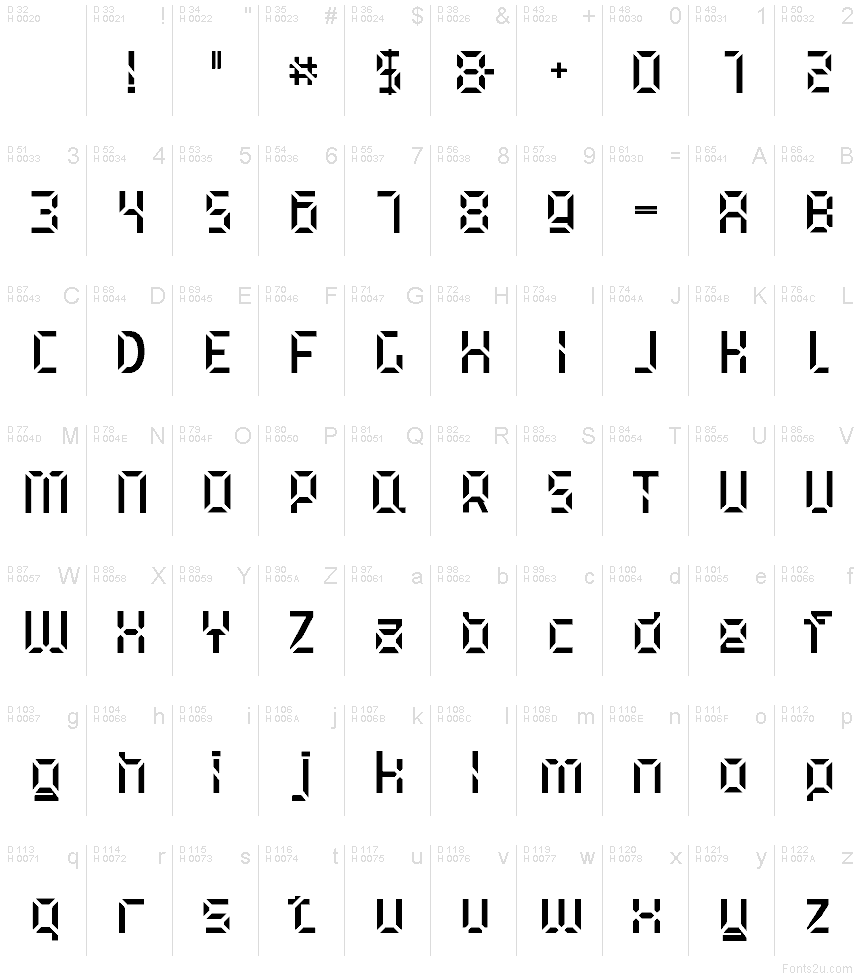
Speed PX Watch
Speed PX Watch font by Ffeeaarr is a free digital display typeface. Its segmented, angular letters echo LED watch numerals, but with sharper corners and more graphic drama, like a racing timer frozen mid-flash. The rhythm of repeated diagonal cuts keeps every word marching in a steady, mechanical beat, giving screens and layouts a crisp, synthetic energy.
Using Speed PX Watch, you can give countdown timers, sci‑fi interfaces, esports branding, racing posters, tech event flyers, and streaming overlays a cohesive, high-speed look. This free font shines when set large, where the facets and gaps read like bold light strips, so let it carry the headline and pair it with a simple geometric sans serif at smaller sizes for supporting text.